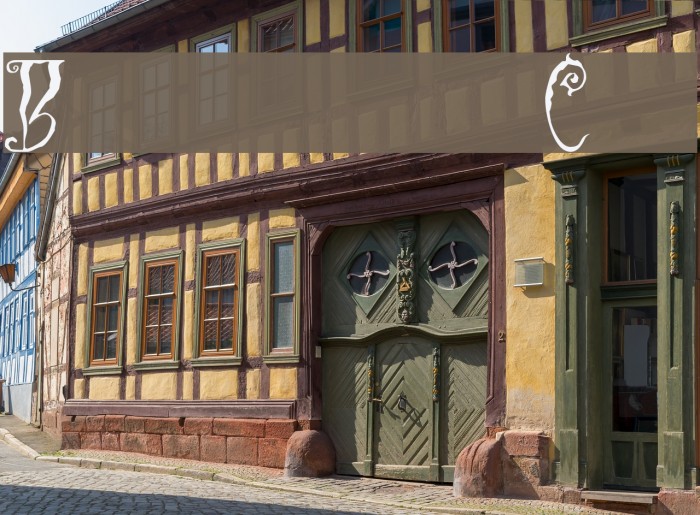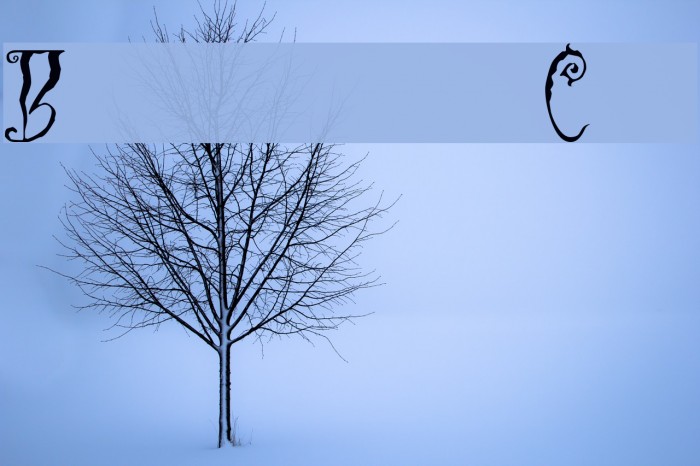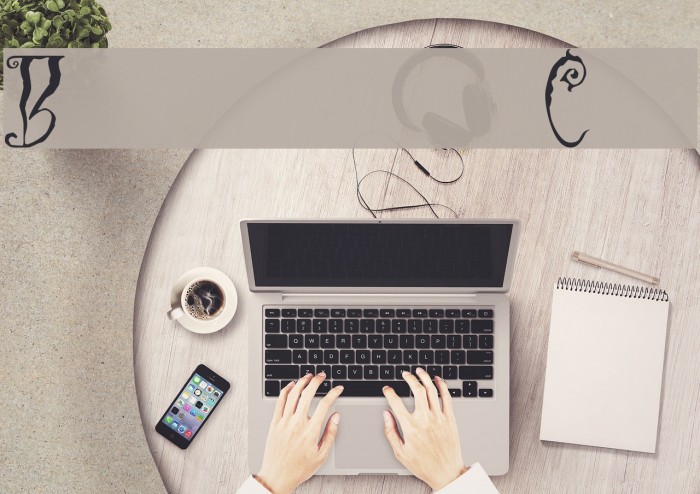
Black Cow Font
Black Cow Description
This font features an intricate and decorative style with swirling, vine-like extensions on each character, giving it a whimsical and slightly gothic appearance. The uppercase letters are particularly elaborate, with each character having unique flourishes that create a sense of movement and organic growth. The strokes are uneven, with some parts being thicker and others tapering off into thin, delicate lines. This creates a high contrast that draws attention to the details of each letter. The overall design is reminiscent of fantasy or fairy tale themes, making it suitable for creative and artistic projects.
| Use Case | Headlines, Logos, Artistic projects |
| Proposed Projects | This font is perfect for fantasy book covers, themed event invitations, artistic posters, and any project requiring a whimsical or gothic touch. |